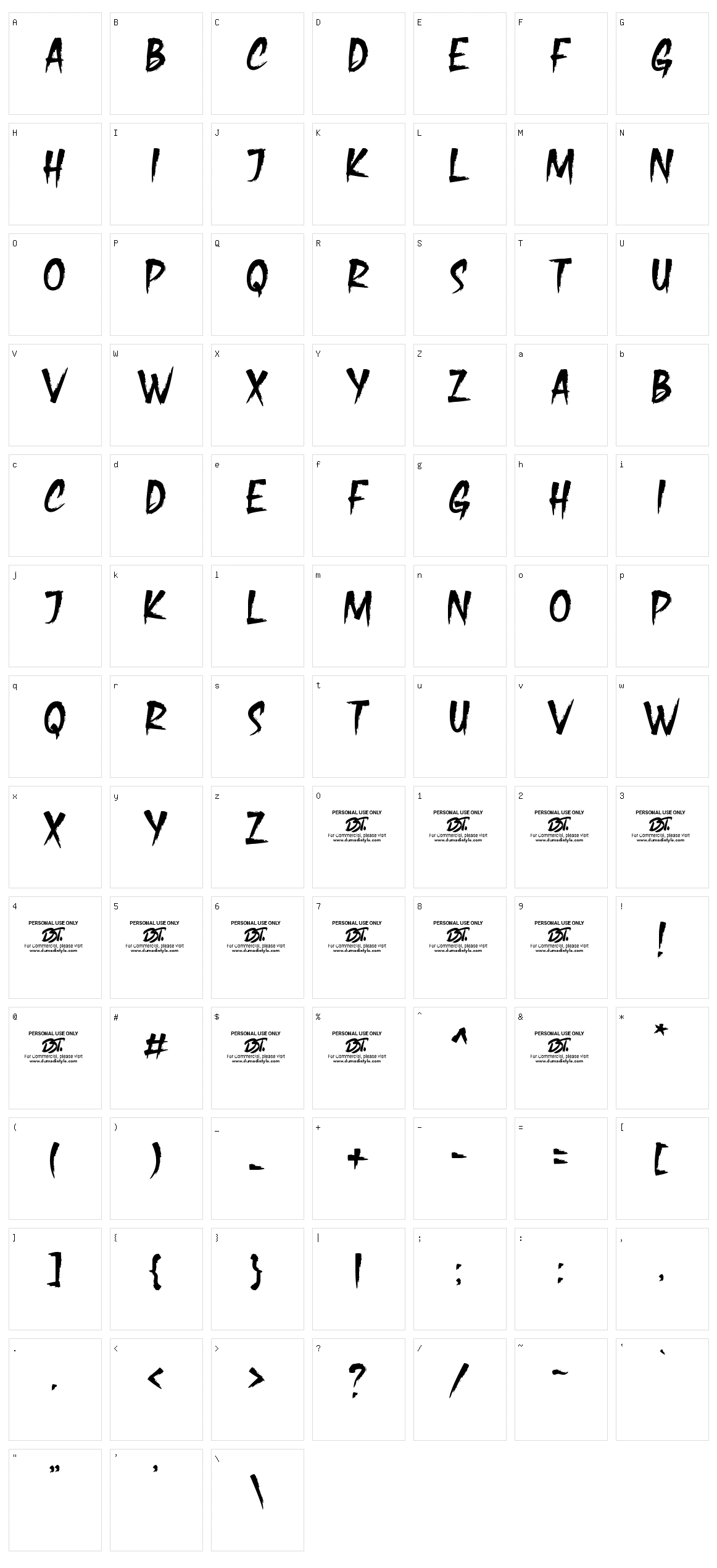
The free font Avaca Davra is carefully designed by DumadiStyle, showcasing a thoughtful balance of creativity and usability and falls under the Horror font style. When you download the ZIP file, it contains only 843.02 KB of font files, making it lightweight and quick to download. Please review the license details below to understand permitted usage and distribution rights. If license information is not available, we recommend using this font for personal projects only or contacting the author directly for commercial usage permissions.